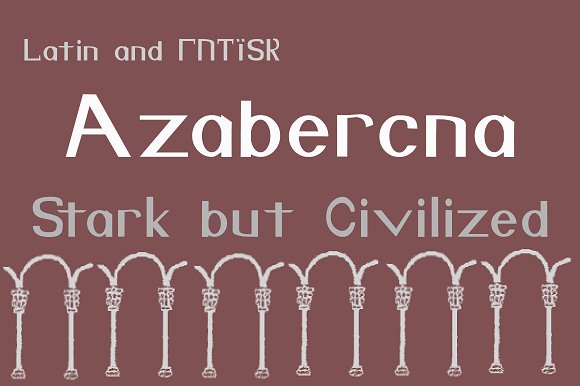
Azabercna Font
In a world of digital expression, your words hold immense power. Let Azabercna Font be the brush that paints your ideas with elegance and distinction. Inspired by the Goths, a people often shrouded in misconceptions, Azabercna Font is a testament to their rich culture and intellectual pursuits.
Wulfilas, a bishop driven by a profound desire to preserve and share knowledge, embarked on a remarkable journey. He translated the Bible into Gothic, a language spoken by his people, and in doing so, he created the Gothic alphabet. This bold act serves as a reminder that not all Goths were unlettered ruffians, but rather individuals who valued learning and sought to bridge the gaps of understanding.
Azabercna Font captures the essence of this Gothic heritage, masterfully blending the 27 extant letters of the Gothic alphabet with our own, resulting in a collection of nearly 500 meticulously crafted glyphs. Each letter is a testament to the fusion of cultures and civilizations, a harmonious dance between the ancient and the modern.
With Azabercna Font at your fingertips, you can unleash your creativity and embark on a typographic odyssey. Design logos that command attention, craft brochures that exude sophistication, and create websites that captivate visitors with their visual allure. The possibilities are boundless, limited only by the depths of your imagination.
Don't settle for ordinary fonts that fade into the background. Embrace the legacy of the Goths, a people who dared to challenge convention and leave an indelible mark on history. Let Azabercna Font be your weapon of choice in the digital battlefield, where words are the ultimate currency and visual impact is the key to success.